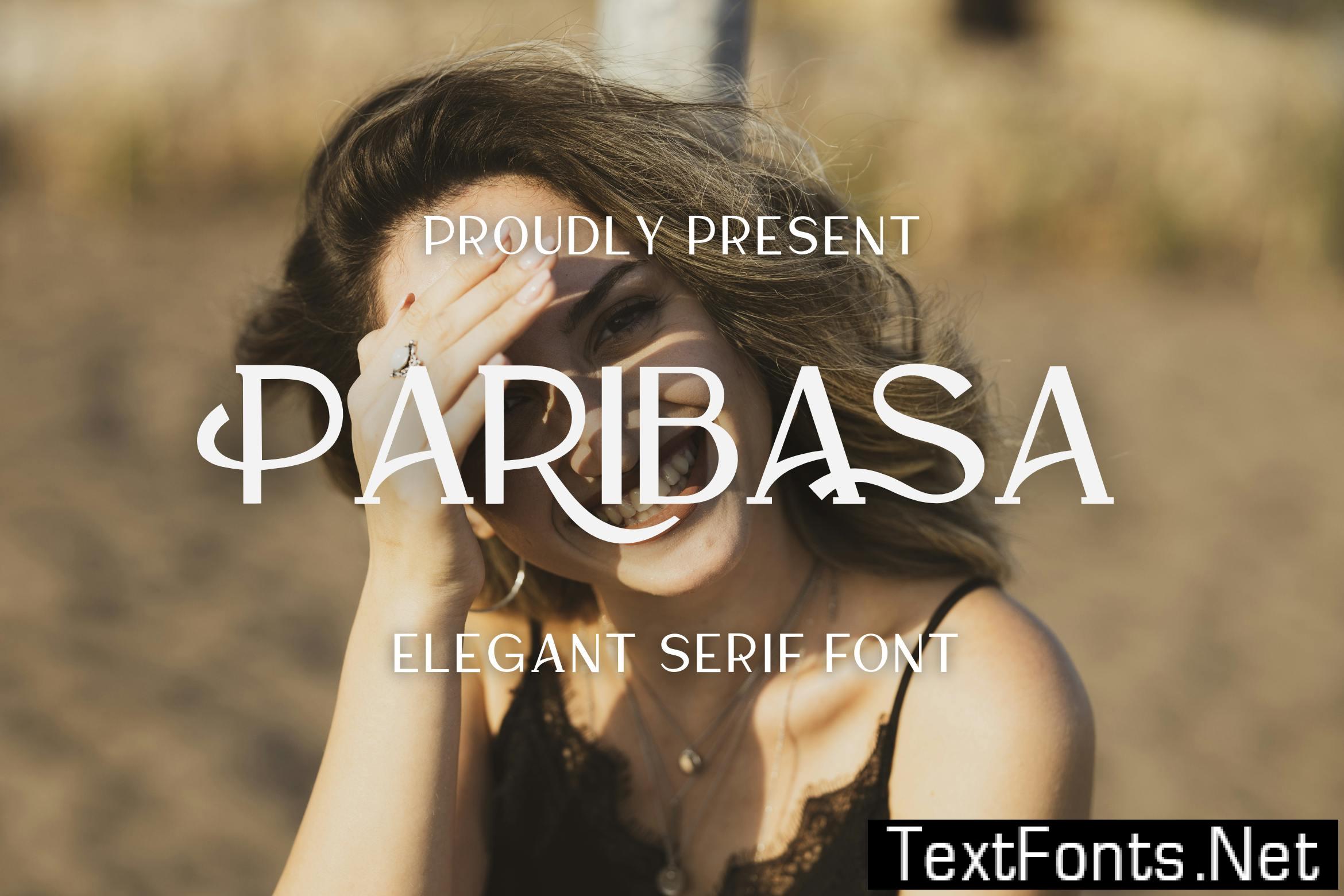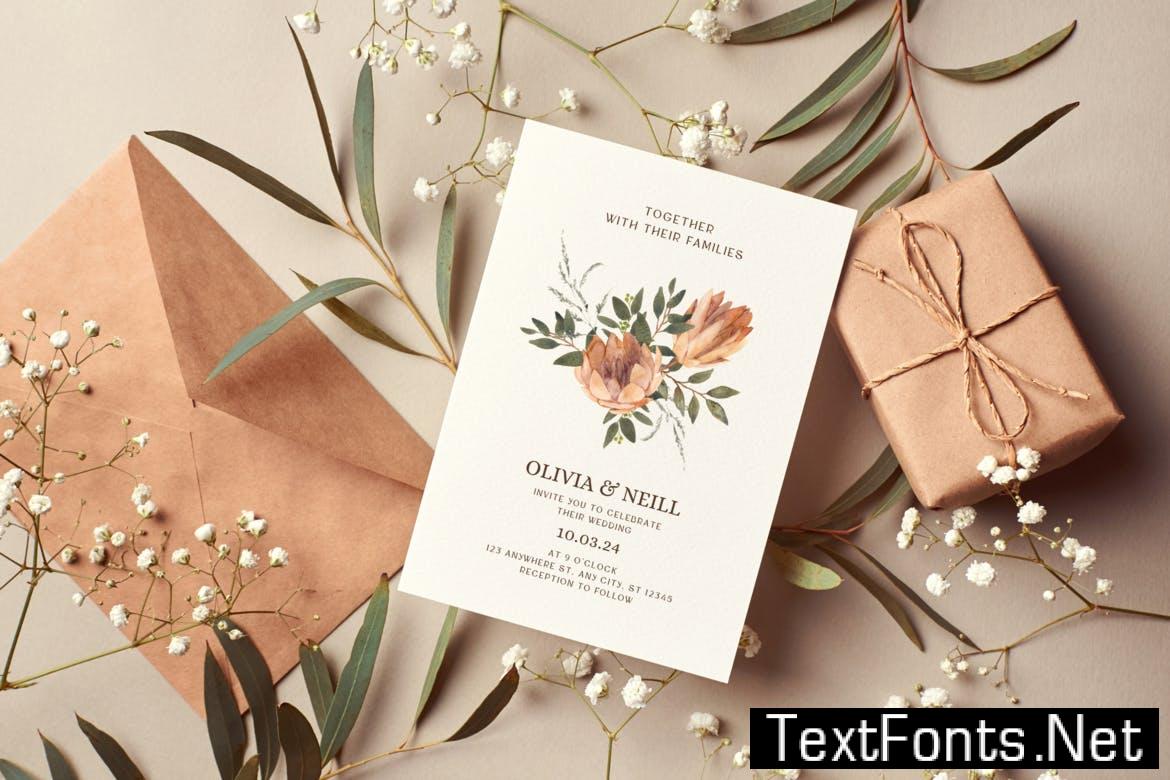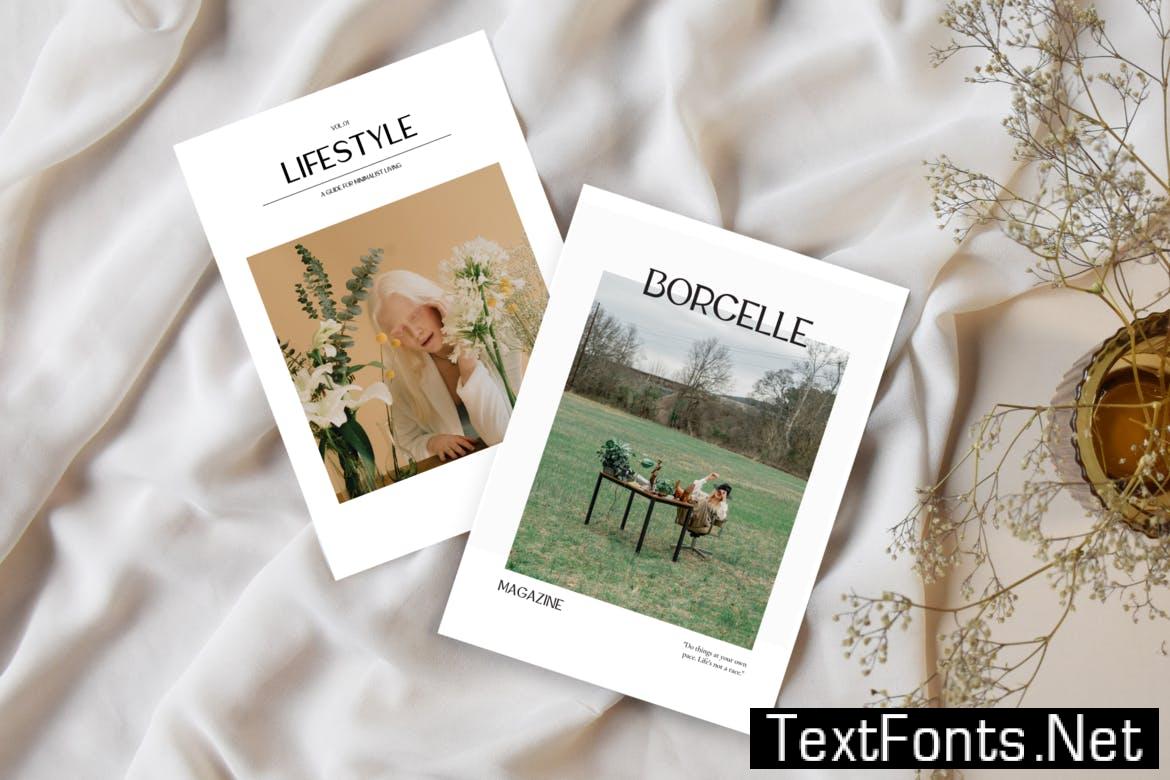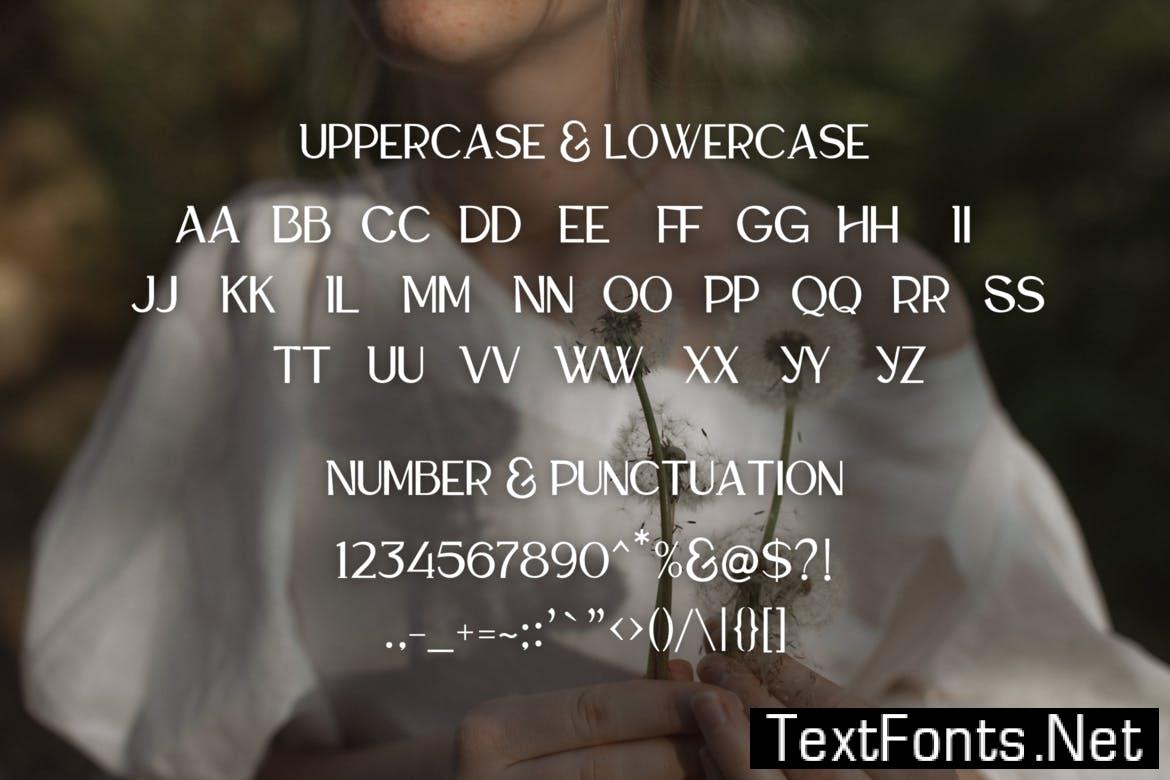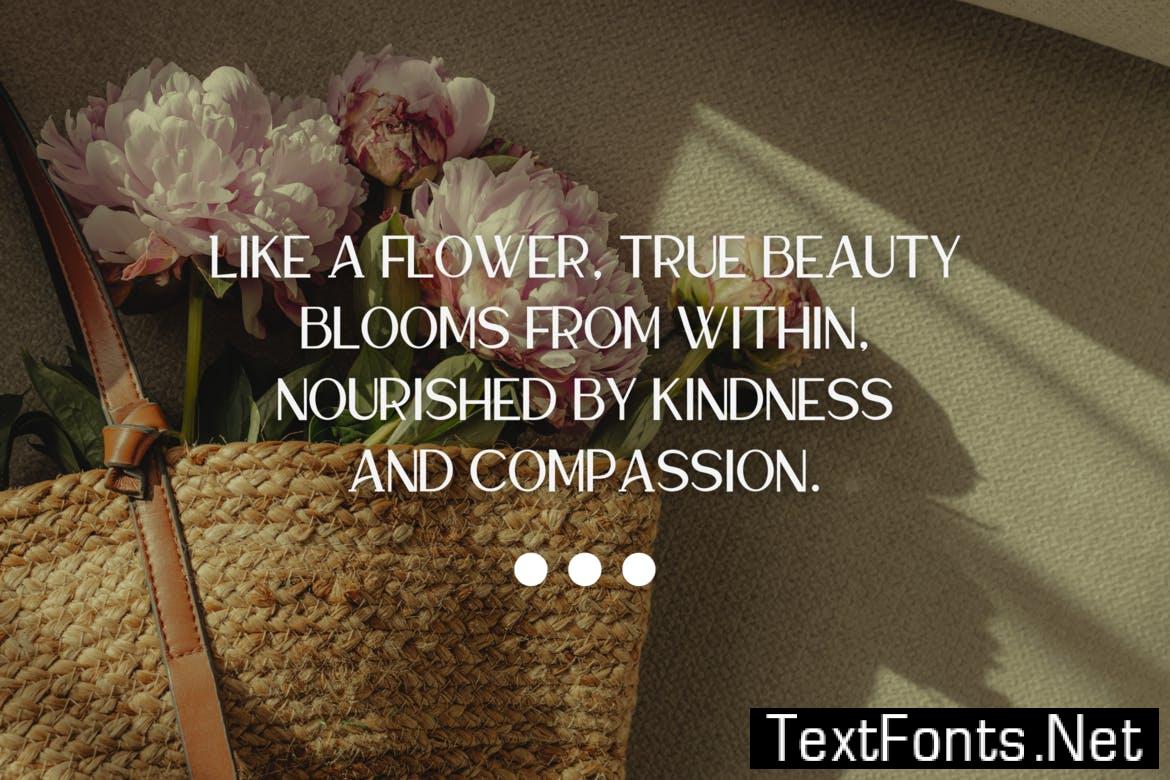
**Description**
For your creative project, use the Paribasa-themed Elegant serif font. Elegant serif font is appropriate for every kind of design you produce, including greeting cards, posters, logos, and branding.